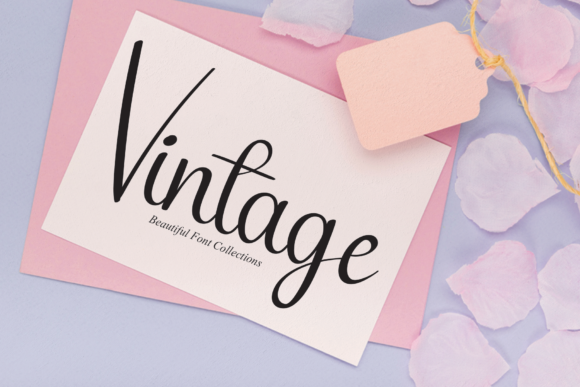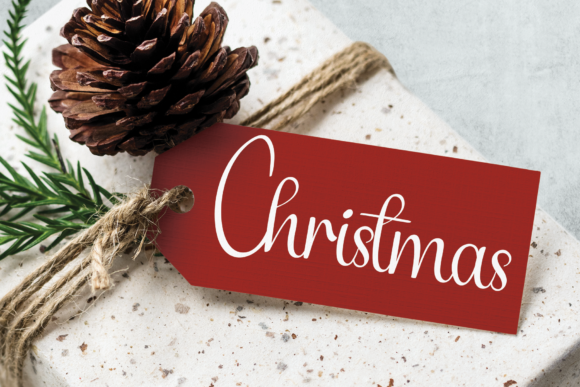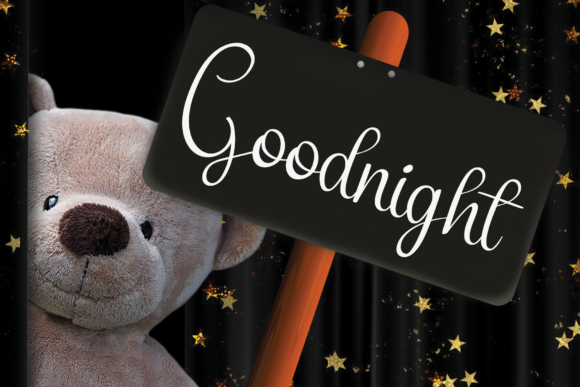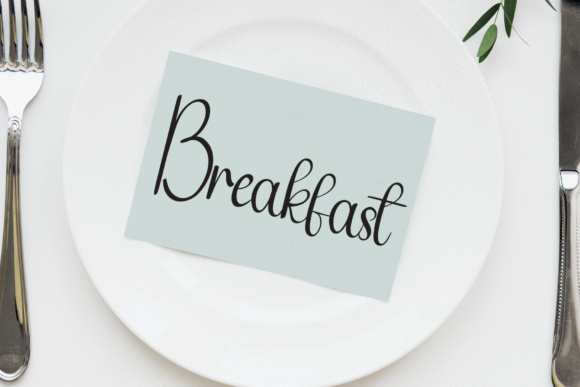
Embracing the Art of Handwritten Text
Have you ever sat down with a pen and paper, and let the flow of your thoughts guide your hand as you scribble out a beautiful, handwritten phrase? For many of us, this moment of creative freedom is a source of joy and inspiration. It’s a chance to express ourselves in a way that feels both personal and timeless.
That’s exactly what the Calligraphy Font aims to capture – the essence of handwritten beauty, in a digital format. This elegant font was crafted with care to produce the expected results, making it perfect for a wide range of products, from wedding invitations to branding materials.
For designers, the Calligraphy Font is a valuable tool that offers a unique way to add personality and style to their work. Whether you’re looking to create a romantic atmosphere or a sophisticated vibe, this font is sure to help you achieve your goals with ease and elegance.
Key Features of Calligraphy Font
- Unique Characteristics: Calligraphy Font features elegant, cursive script with intricate details and flourishes, giving it a classic and sophisticated look.
Calligraphy Font Review
I recently had the chance to work with the Calligraphy Font, and I must say, it’s a beautiful addition to any design project. ✨ The fluid, elegant lines and classic style make it perfect for wedding invitations, greeting cards, and other special occasion designs. The font’s versatility also makes it suitable for various industries, from fashion to food.
One of the things I love about this font is its legibility. ✨ It’s easy to read, even in smaller sizes, making it perfect for body text or headings. The font also comes in a variety of styles, from formal to casual, allowing you to choose the perfect fit for your design.
- ⚠️ Limited language support: The font only supports a limited number of languages, which may be a issue for designers working on international projects.
- ⚠️ Not ideal for digital use: The font’s design makes it better suited for print projects. Its readability may decrease in digital formats.
- ⚠️ Not suitable for bold or heavy text: The font’s delicate design may not be effective when used for bold or heavy text, making it better suited for smaller text sizes.
Overall, the Calligraphy Font is a stunning addition to any design library. While it has some limitations, its beauty and versatility make it a great choice for the right projects. With some careful consideration of its limitations, designers can create stunning, elegant designs that are sure to impress.